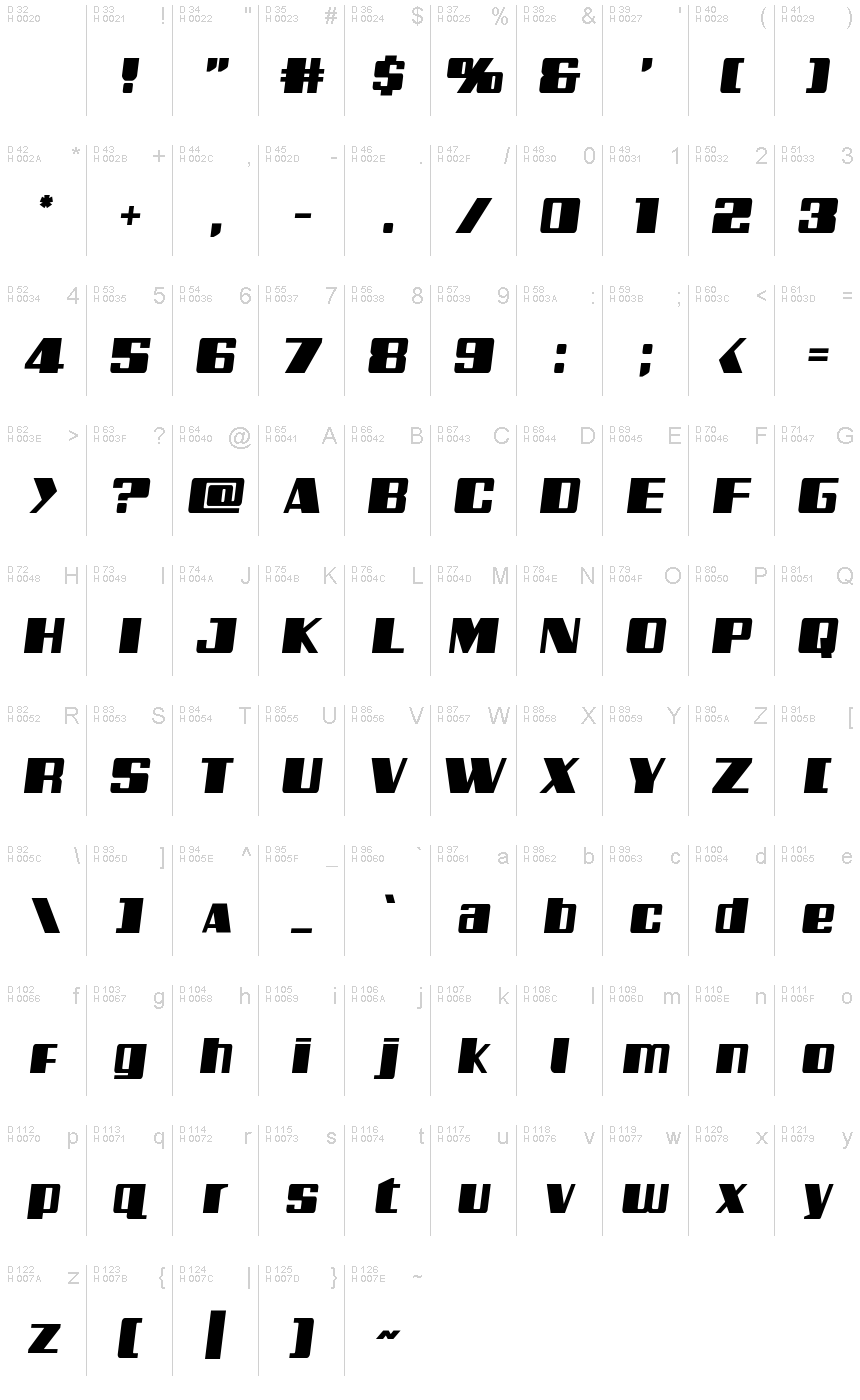
Galactic Storm Semi-Italic
Galactic Storm Semi-Italic, from the iconic Galactic Storm font family designed by Iconian Fonts, is a futuristic display typeface with extra-bold weight and expanded width. Its unique semi-italic style adds a touch of elegance to the otherwise edgy design, making it suitable for a wide range of projects, from sci-fi movie posters and book covers to futuristic game titles and album art. Its bold presence demands attention, while its sleek curves and angled strokes give it an otherworldly feel that's perfect for any project looking to make a statement. Bring your designs to the next level with Galactic Storm Semi-Italic.